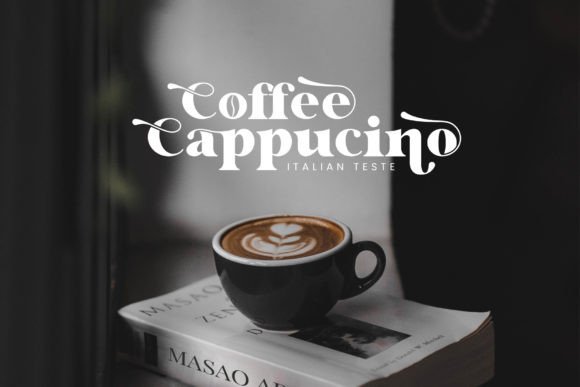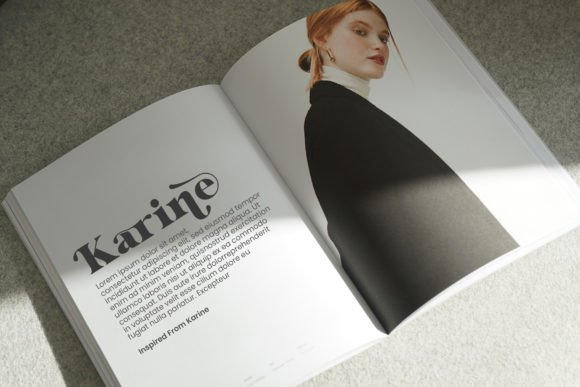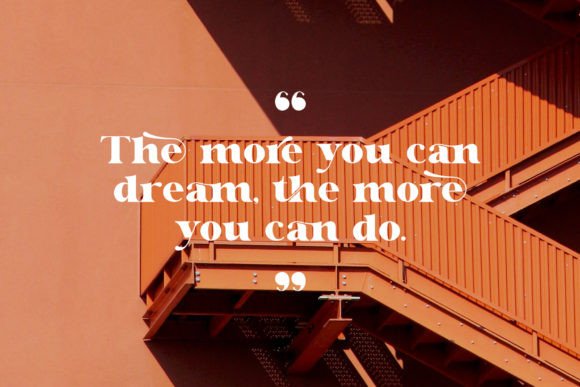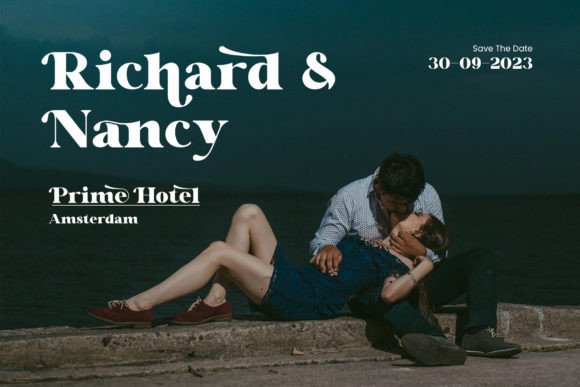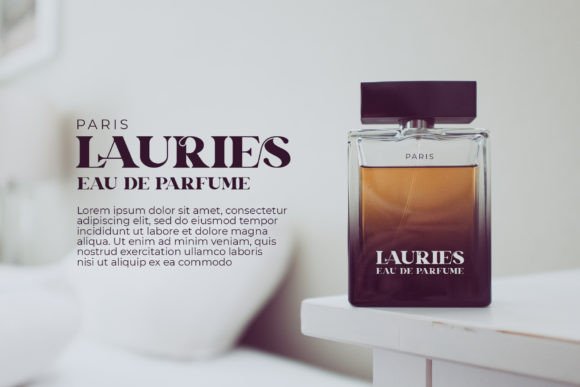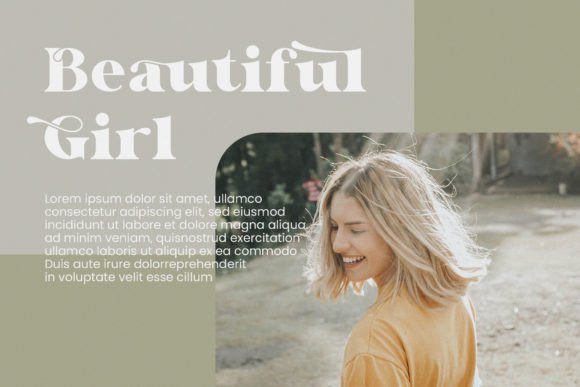
Glaure Font: Elevate Your Designs with Elegance and Sophistication
In the world of typography, a font can make or break a design. For designers and crafters, finding the perfect font that embodies elegance, sophistication, and style can be a daunting task. However, look no further than the Glaure Font, a stunning serif font that is sure to elevate your designs to new heights.
What is Glaure Font?
Glaure Font is a beautifully crafted serif font that exudes balance, smoothness, and elegance. Its classic design makes it an ideal choice for a wide range of applications, from invitation card designs and company logos to movie titles, book titles, and brand names. With its sophisticated and stylish aesthetic, Glaure Font is perfect for designers and crafters looking to add a touch of luxury to their work.
Key Features of Glaure Font
- Balanced Design: Glaure Font boasts a perfectly balanced design, ensuring that your text is easy to read and visually appealing.
- Smooth Lines: The font’s smooth lines and curves create a sense of fluidity, making it perfect for designs that require a touch of elegance.
- Elegant and Stylish: Glaure Font’s classic serif design makes it an excellent choice for designs that require a sophisticated and stylish aesthetic.
- Versatile: This font is suitable for a wide range of applications, including invitation card designs, company logos, movie titles, book titles, and brand names.
Use Cases for Glaure Font
Glaure Font is an incredibly versatile font that can be used in various design projects. Here are some use cases where Glaure Font shines:
- Invitation Card Designs: Add a touch of elegance to your invitation cards with Glaure Font’s sophisticated design.
- Company Logos: Create a lasting impression with a company logo that features Glaure Font’s stylish and elegant aesthetic.
- Movie Titles and Names: Give your movie titles and names a cinematic feel with Glaure Font’s classic serif design.
- Business Cards: Stand out from the crowd with business cards that feature Glaure Font’s smooth and elegant design.
- Book Titles and Brand Names: Add a touch of sophistication to your book titles and brand names with Glaure Font’s balanced and stylish design.
Why Choose Glaure Font?
With so many fonts available, why choose Glaure Font? Here are a few reasons why Glaure Font stands out from the rest:
- Unique Design: Glaure Font’s classic serif design is both elegant and stylish, making it perfect for designers and crafters looking for a unique font.
- High-Quality: Glaure Font is a high-quality font that is designed to deliver exceptional results in various design projects.
- Easy to Read: The font’s balanced design and smooth lines make it easy to read, ensuring that your text is clear and concise.
In conclusion, Glaure Font is an exceptional serif font that is perfect for designers and crafters looking to add a touch of elegance and sophistication to their designs. With its balanced design, smooth lines, and elegant aesthetic, Glaure Font is an excellent choice for a wide range of applications. Whether you’re designing invitation cards, company logos, movie titles, or book titles, Glaure Font is sure to elevate your designs to new heights.